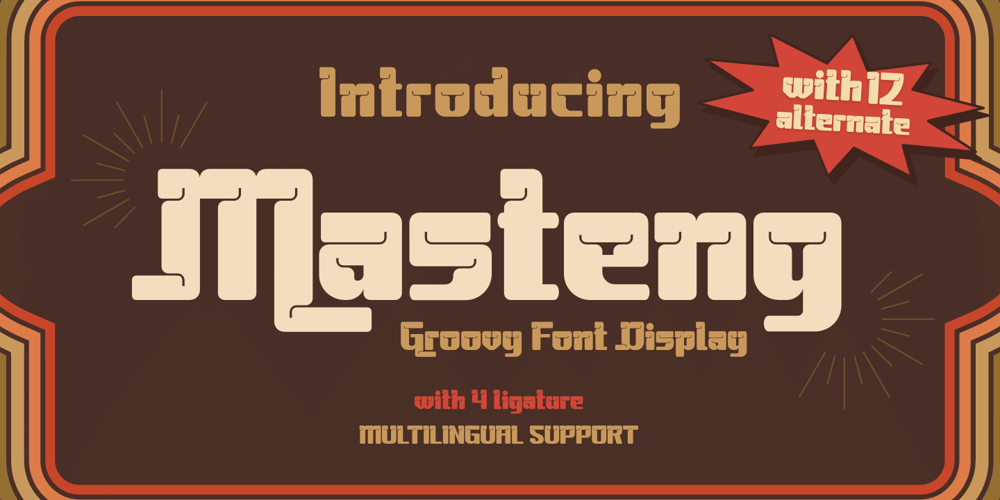
Masteng Font Family was designed by Rozikan and published by Twinletter. Masteng contains 1 styles and family package options. Turn your designs into something special with the Masteng Groovy Font. This font features an anatomical design between thick and thin lines, making it visually unique from most other fonts. The combination of words that arise will make your project bold and powerful. Take advantage of this awesome font for a project that’s superior and more striking than ever!What’s Included : Standard glyphs Iso Latin 1 Simple installations We highly recommend using a program that supports OpenType features and Glyphs panels like many Adobe apps and Corel Draw, so you can see and access all Glyph variations. PUA Encoded Characters – Fully accessible without additional design software. Fonts include Multilingual support